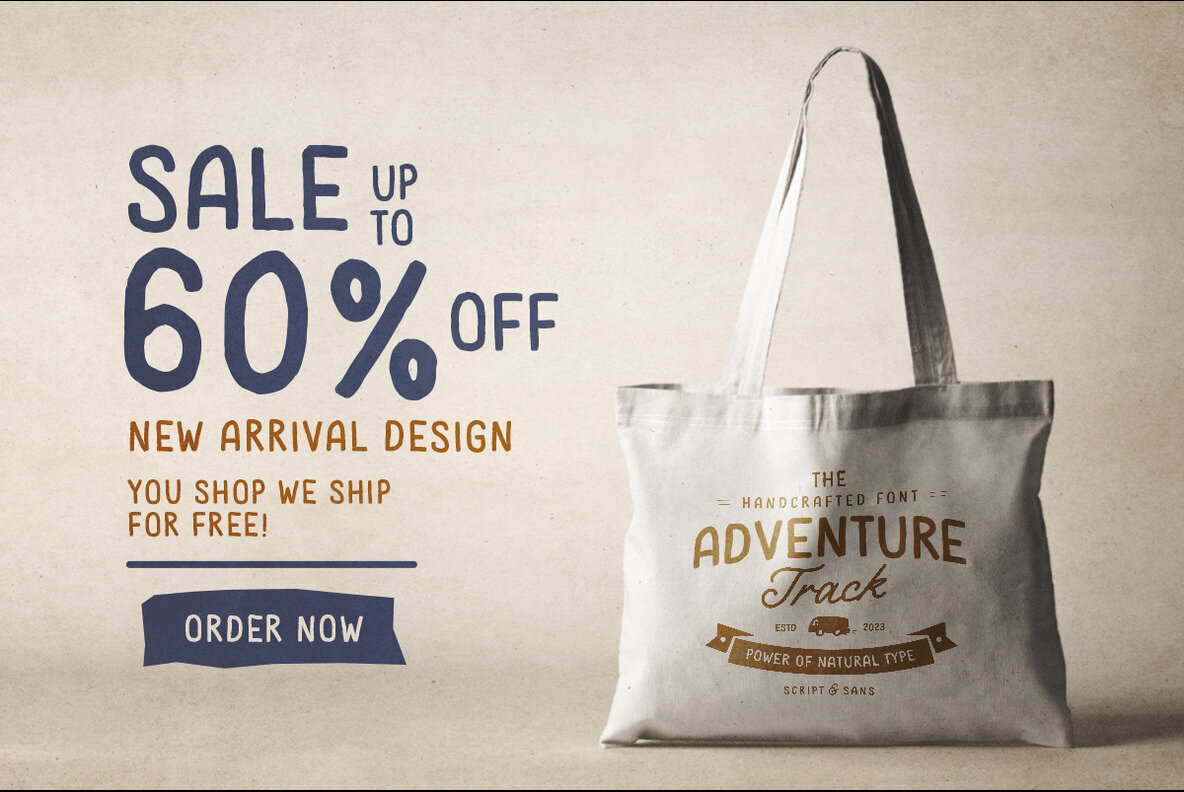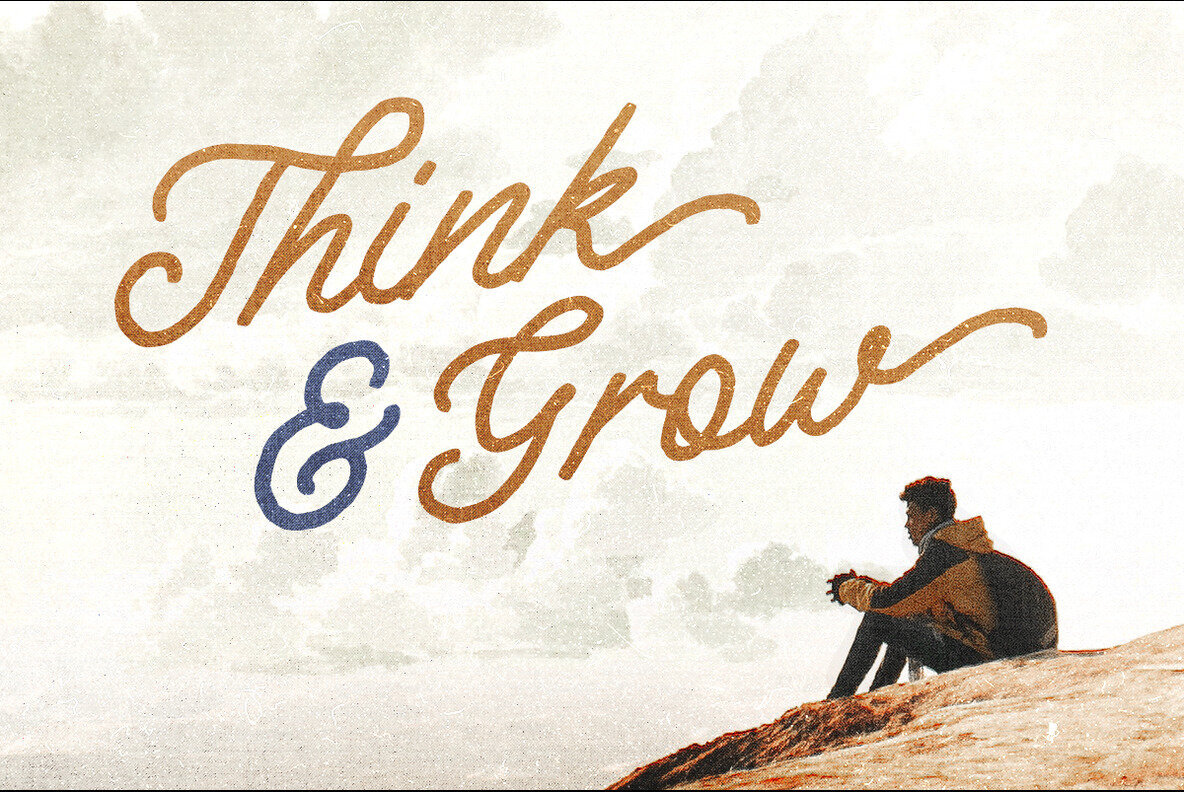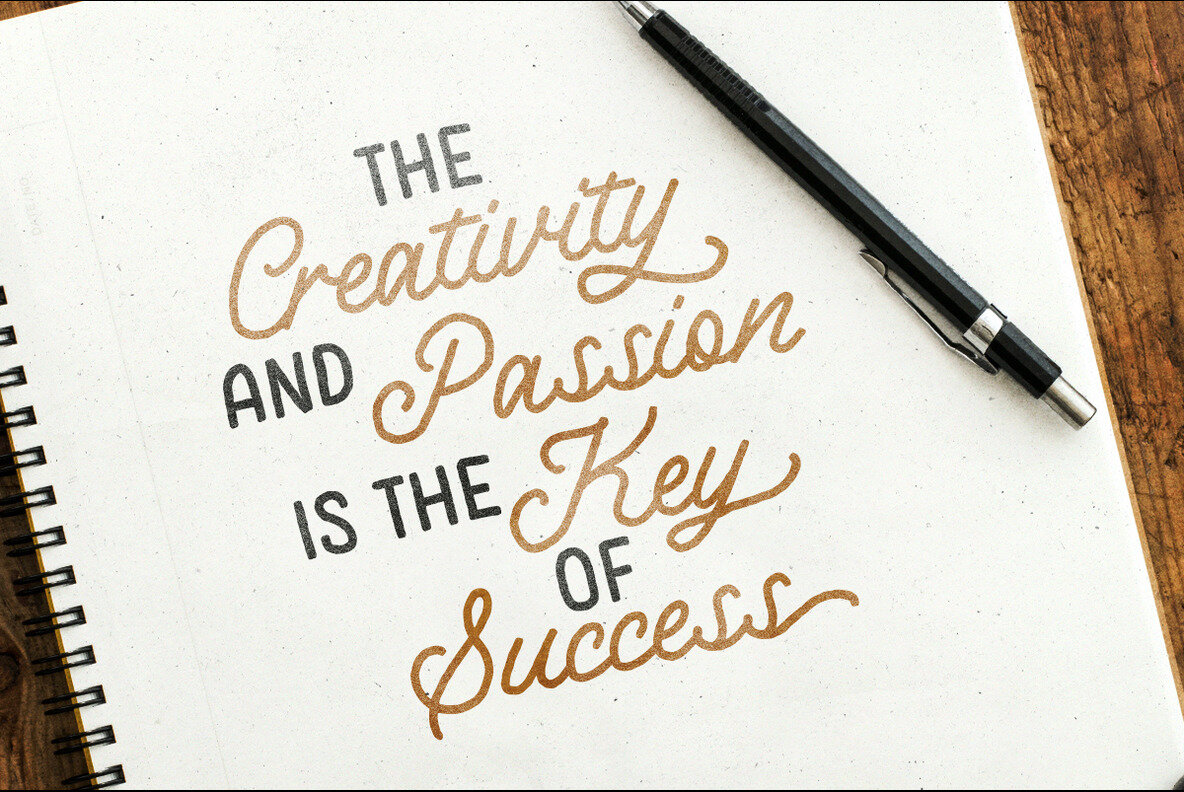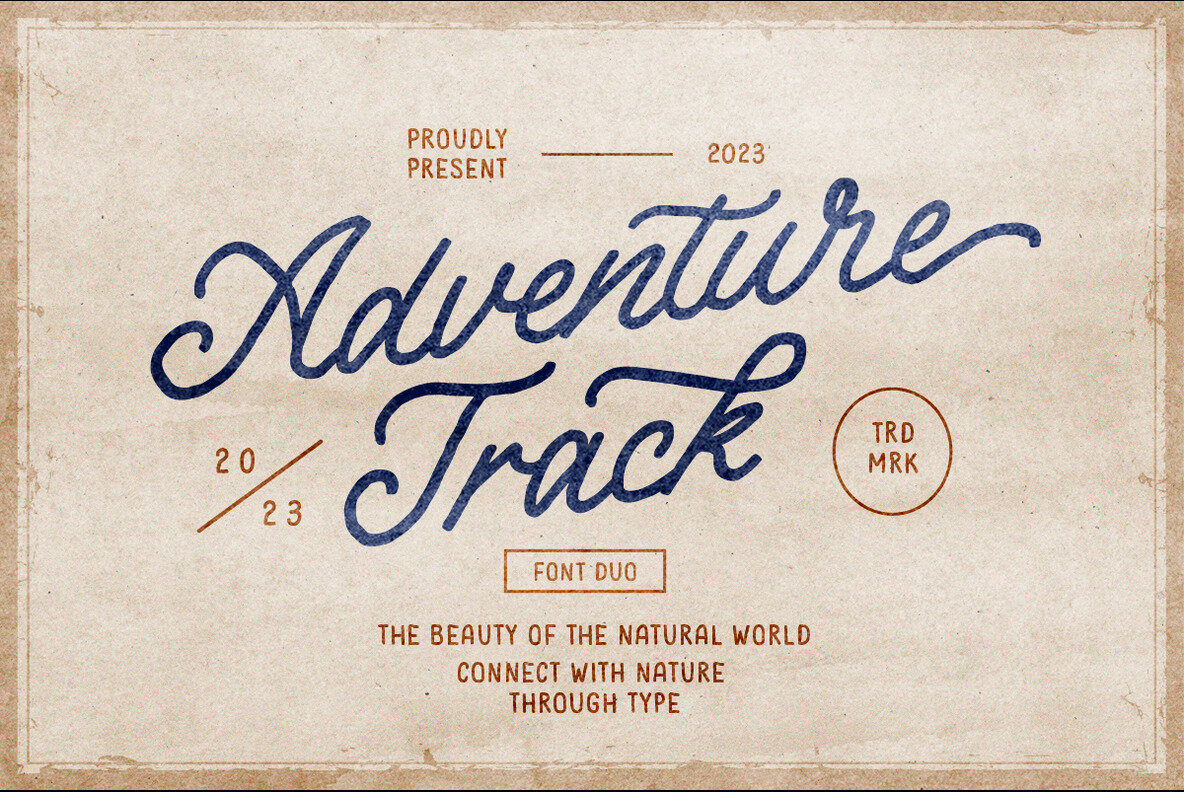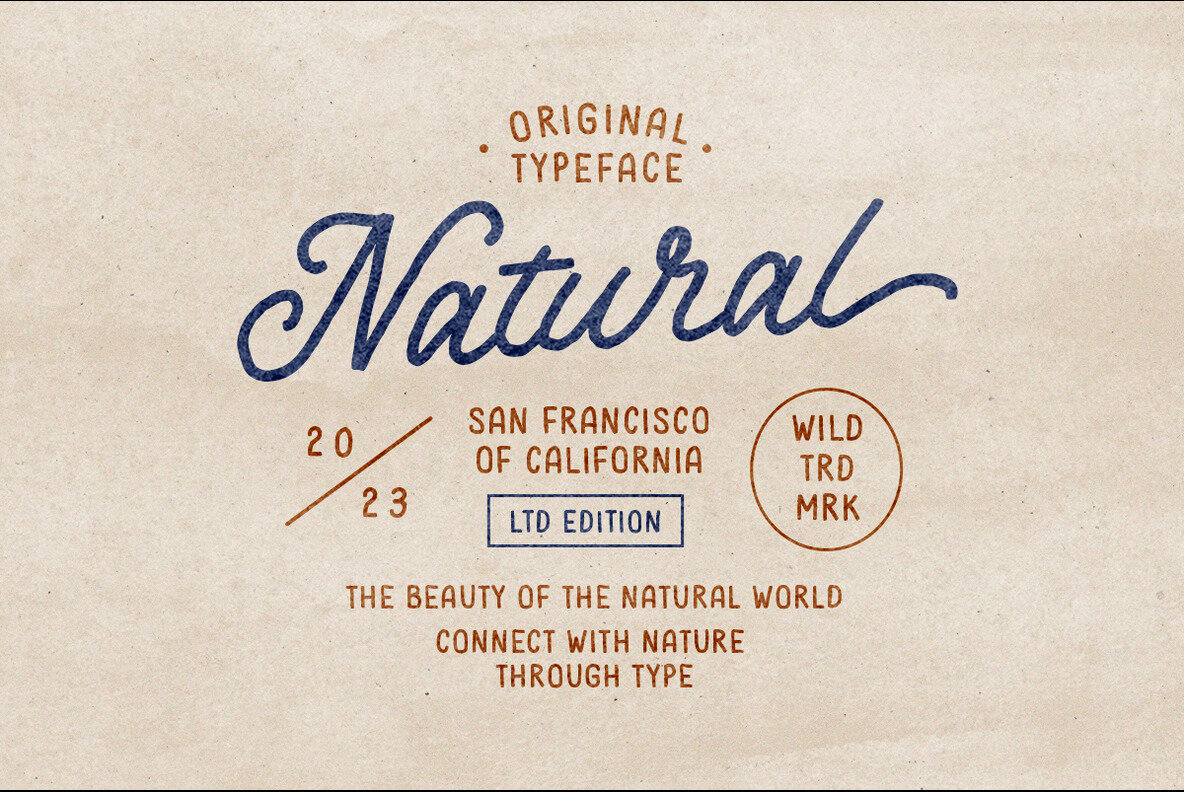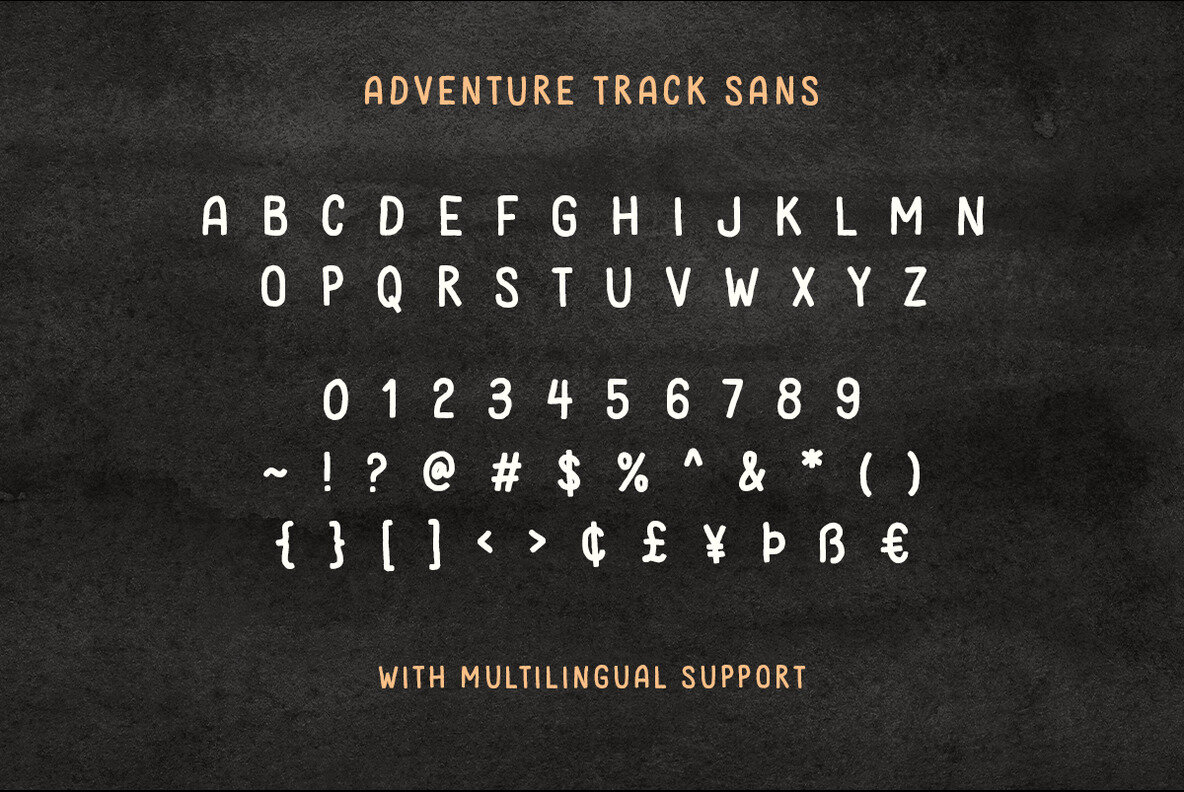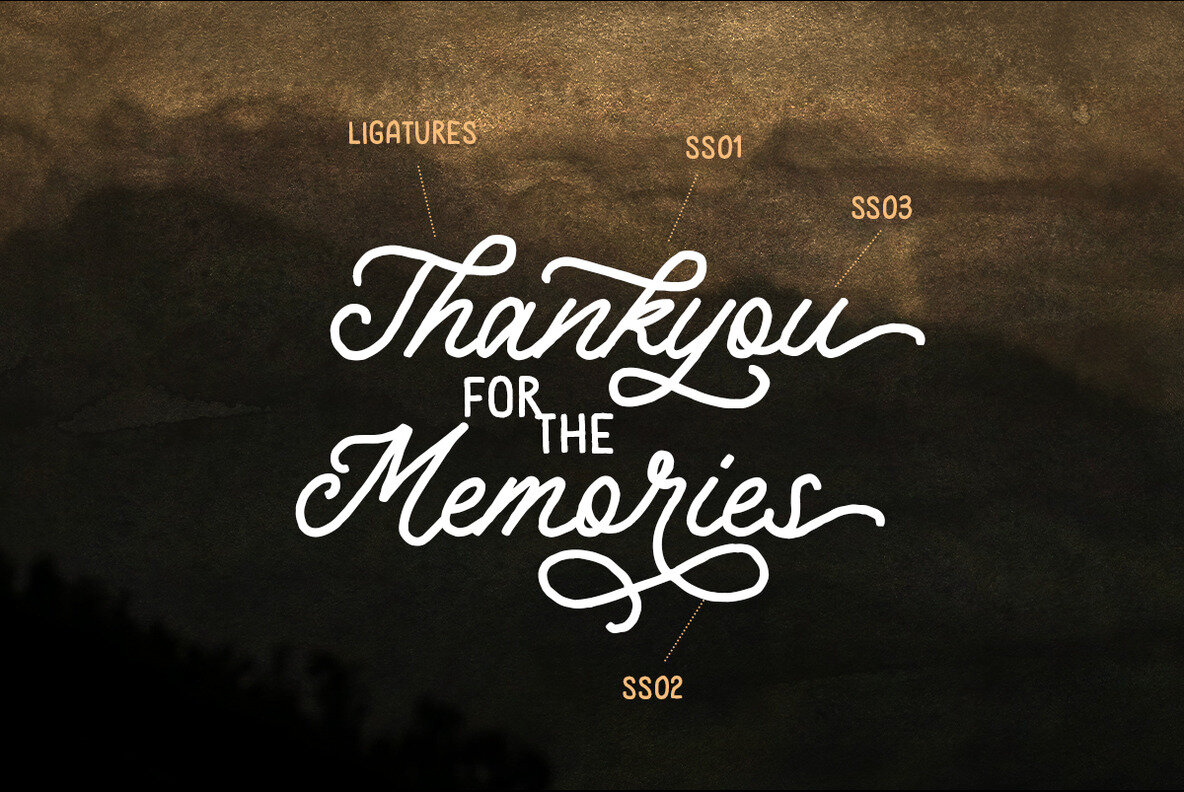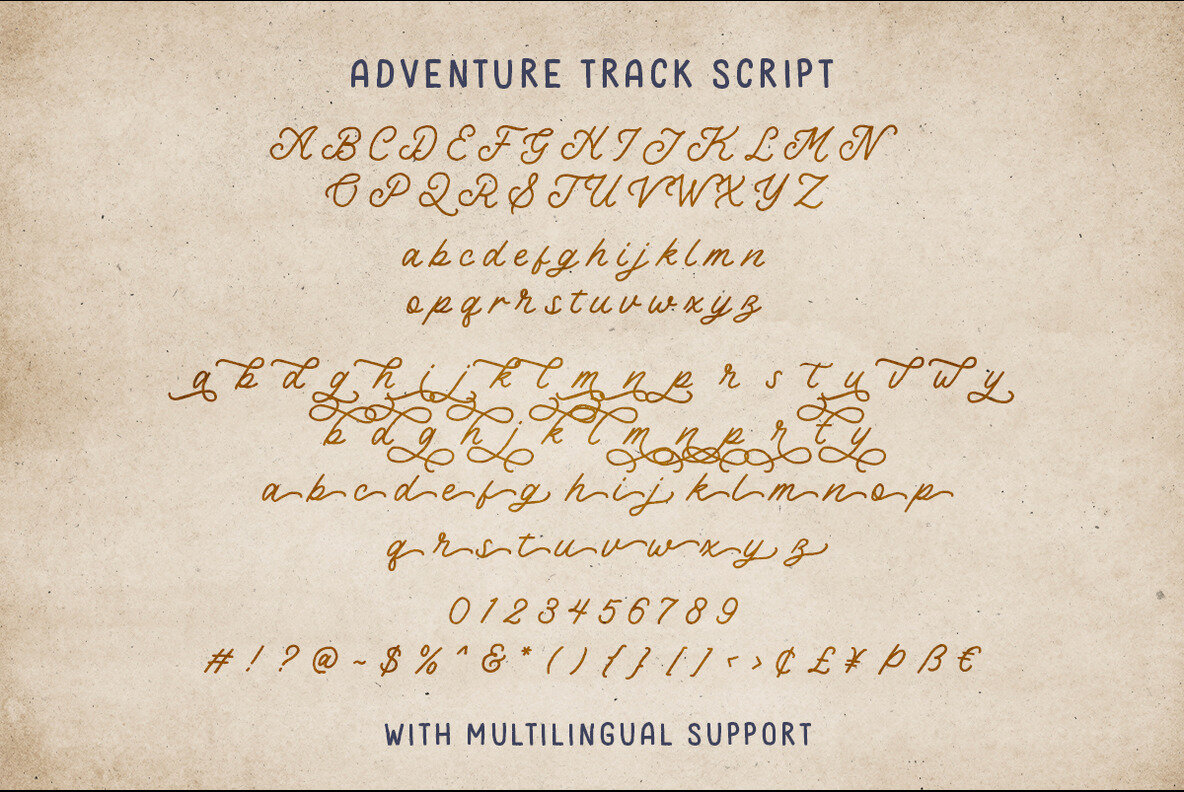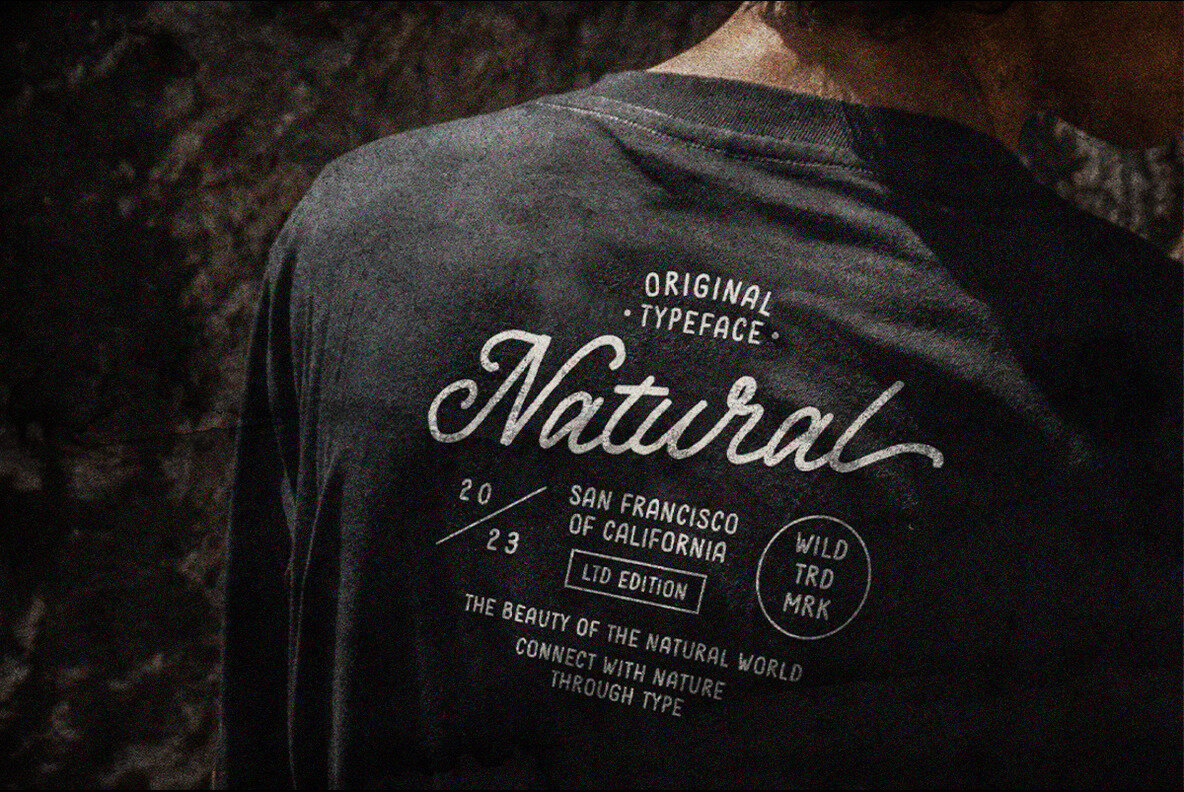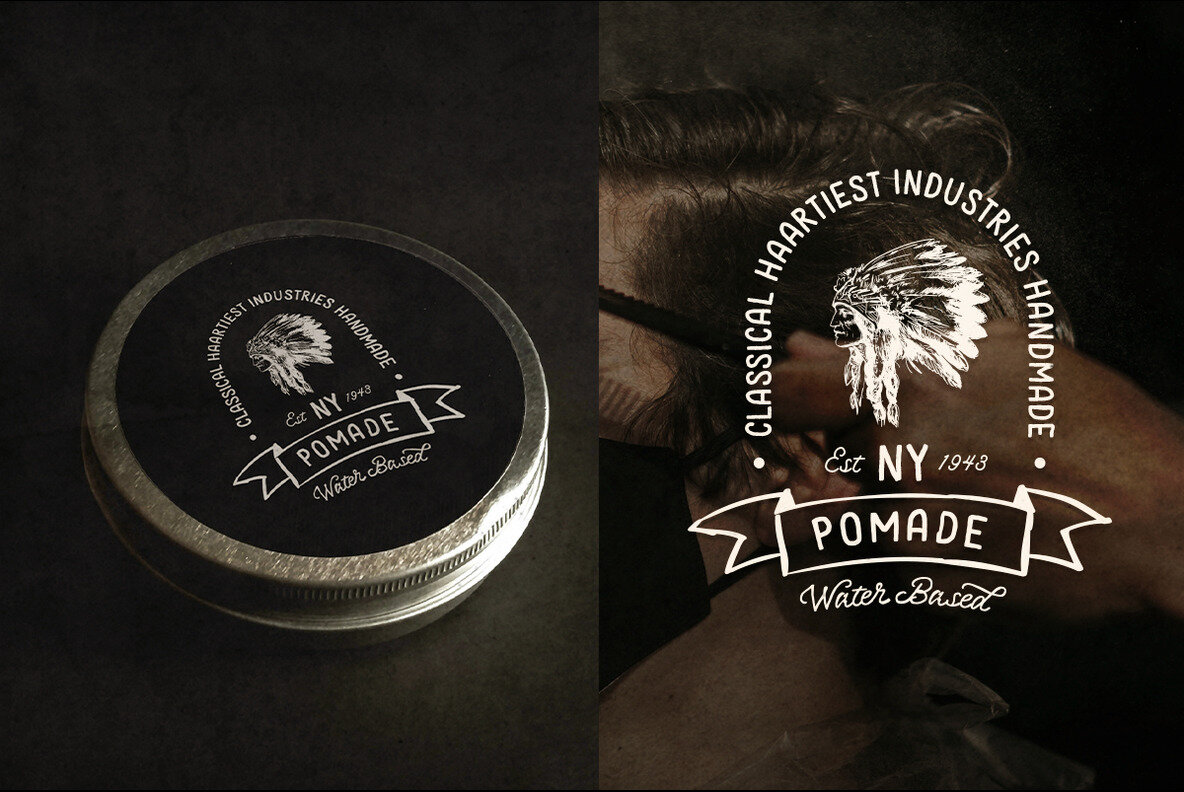
Adventure Track Font
Adventure Track Sans
Adventure Track Script
Adventure Track is a handmade monoline font duo featuring both Script and Sans Serif styles. This versatile pairing is ideal for creating logotypes or badges for outdoor and adventure-themed projects. It brings a natural and handcrafted aesthetic that's perfect for adding a personal touch to your designs.
This font duo excels in versatility, making it an excellent choice for anything from eye-catching logos to inspiring quotes. Designed with multilingual support in mind, Adventure Track ensures you can reach a global audience without compromising on style. The natural, handmade look offers a unique and authentic feel to all your creative ventures.